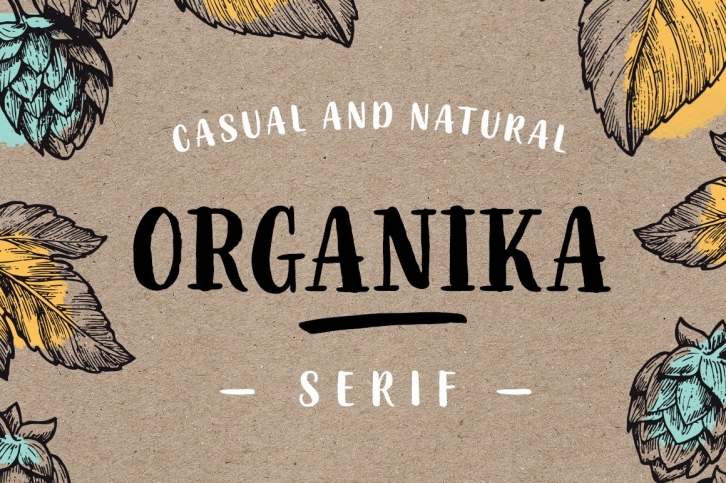
Organika Serif is a hand drawn sans serif. Because of the uneven edges, loose forms and bouncing letters Organika has an organic, friendly and casual feeling.
The script has lots of alternates that gives you possibility to build your text almost like handwriting with all the charming imperfections and variations that a real handwriting has. If you enable Discretionary Ligatures OpenType feature (dlig) it replaces automatically lower case letters with an alternate when the letter is repeated. So there is never two letters next to each other that are just the same. The script also has a few neat underlines to choose from to give your design the final touch.
Organika Serif is part of Organika Type Family. With the Organika sans and serif fonts you can add some variety and contrast to your design with the matching casual hand written feeling.